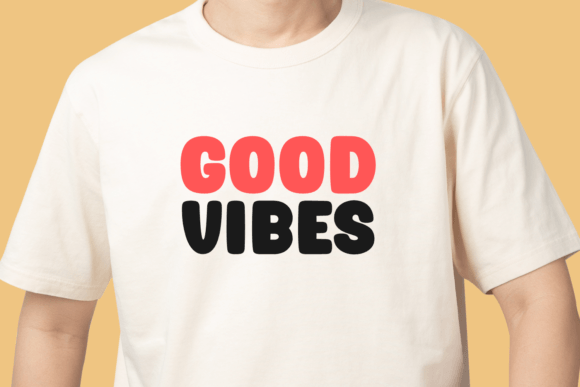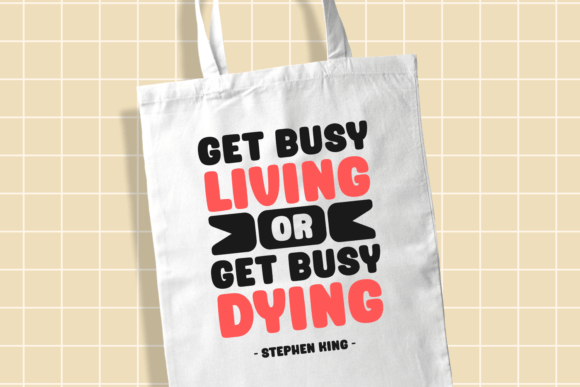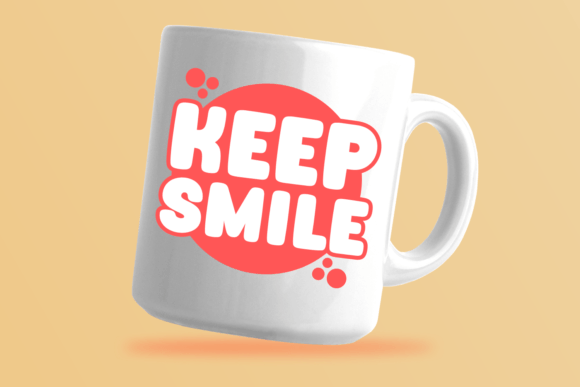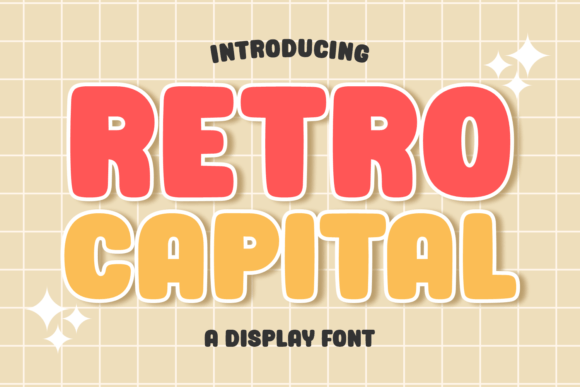
Introduction to Retro Capital Font
Retro Capital is a bold and eye-catching all-caps display font that effortlessly brings a nostalgic vibe to your designs.
Inspired by the classic typography of the past, this font is perfect for adding a touch of vintage flair to your projects With its strong and commanding presence, Retro Capital demands attention and exudes a sense of confidence.
Key Features of Retro Capital Font
Why Choose Retro Capital Font?
Retro Capital Font offers exceptional quality and versatility, making it a valuable addition to your design toolkit. Whether you’re creating for personal projects or commercial use, Retro Capital Font delivers professional results.